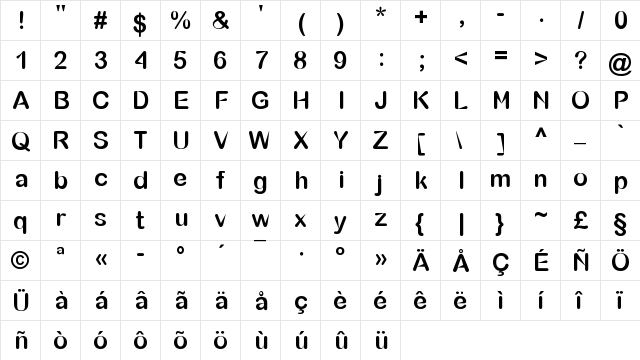
bubble sharp Regular
Design Context for bubble sharp Typeface
bubble sharp trades formality for fun, with bouncy, characterful letterforms that bring warmth and energy to any project.
Font Pairing: Pairs well with a rounded or humanist sans for body copy, maintaining the friendly tone without relying on bubble sharp to carry extended reading.
Pro Tip: Use bubble sharp at larger display sizes where its expressive character can land. Pair with a clean, simple sans for body copy to maintain readability.